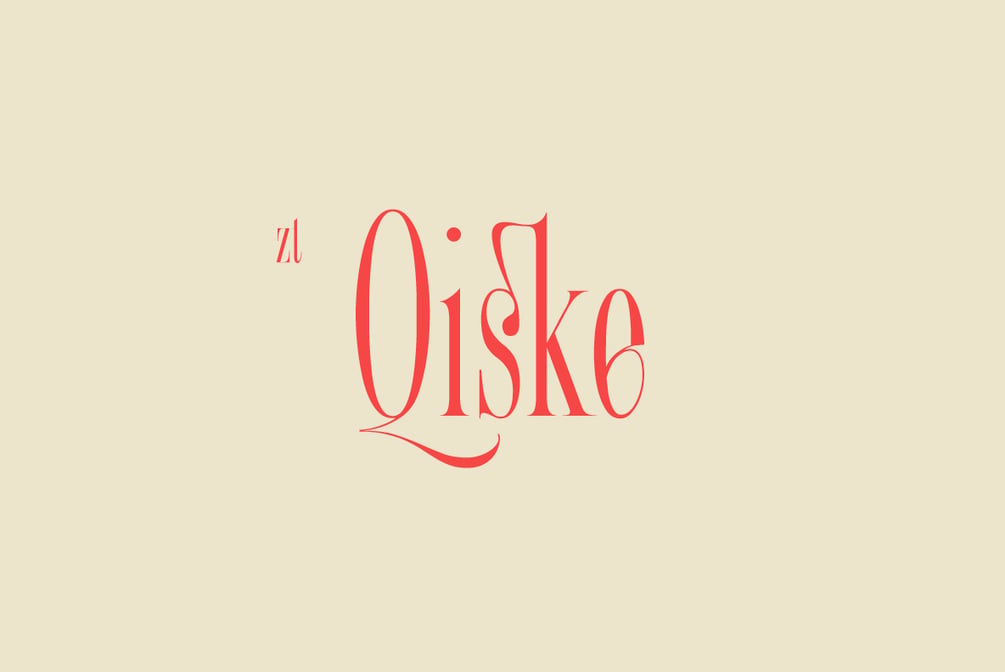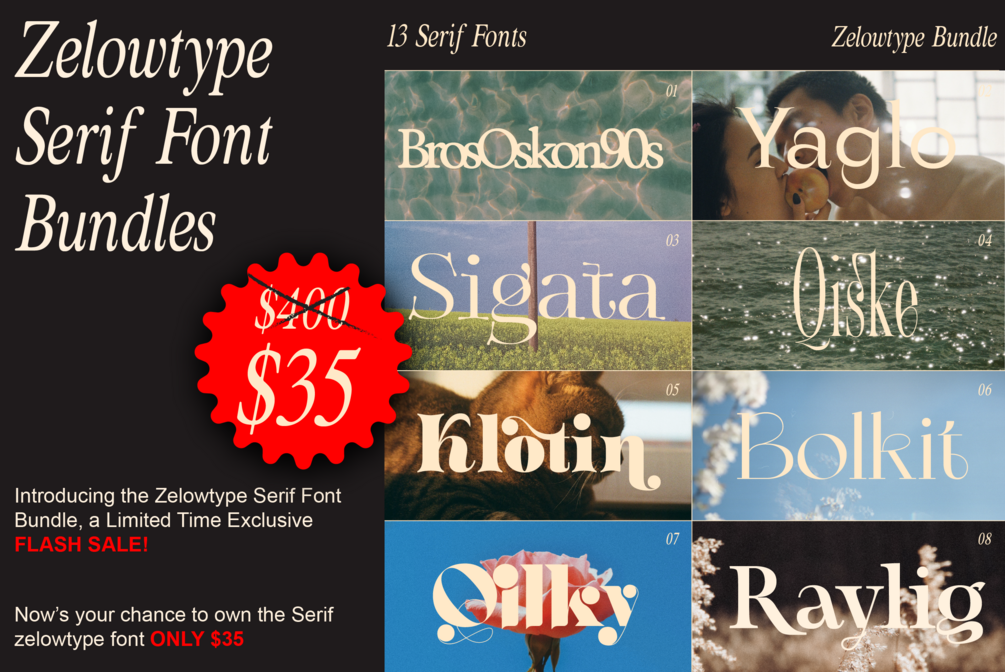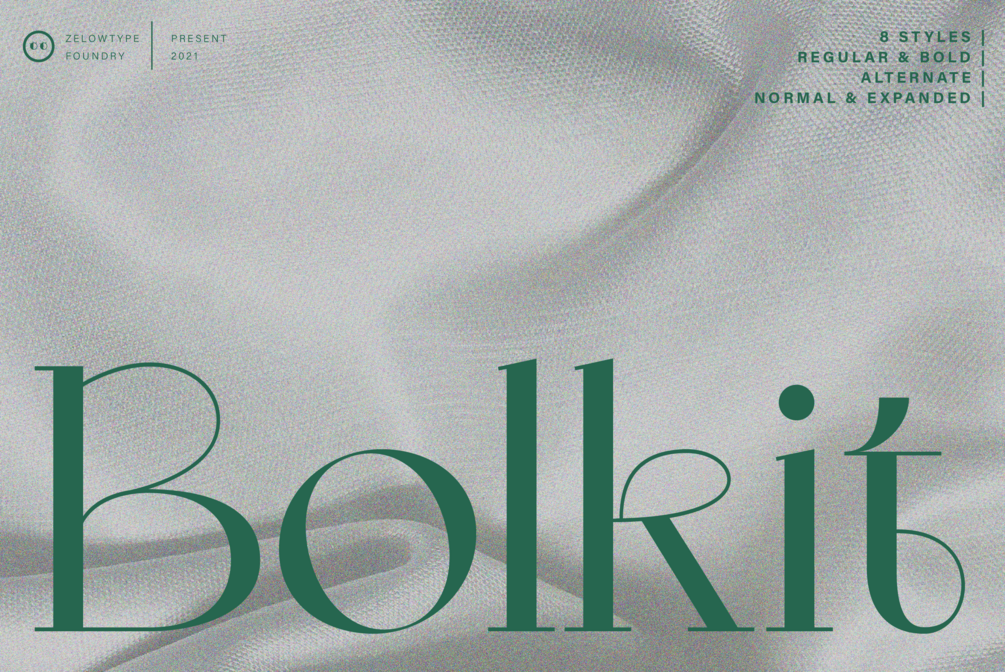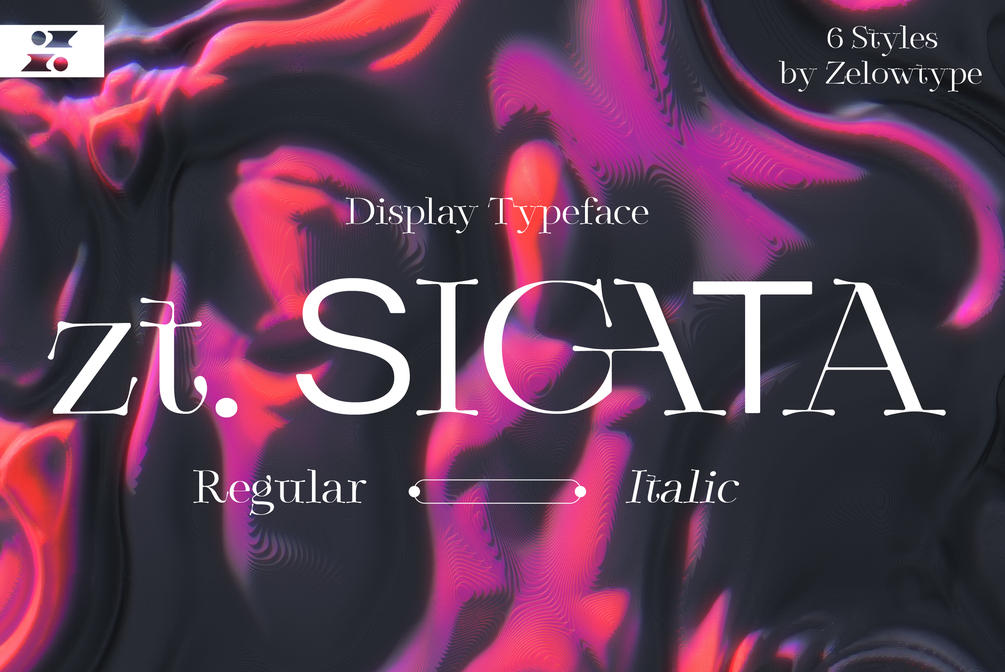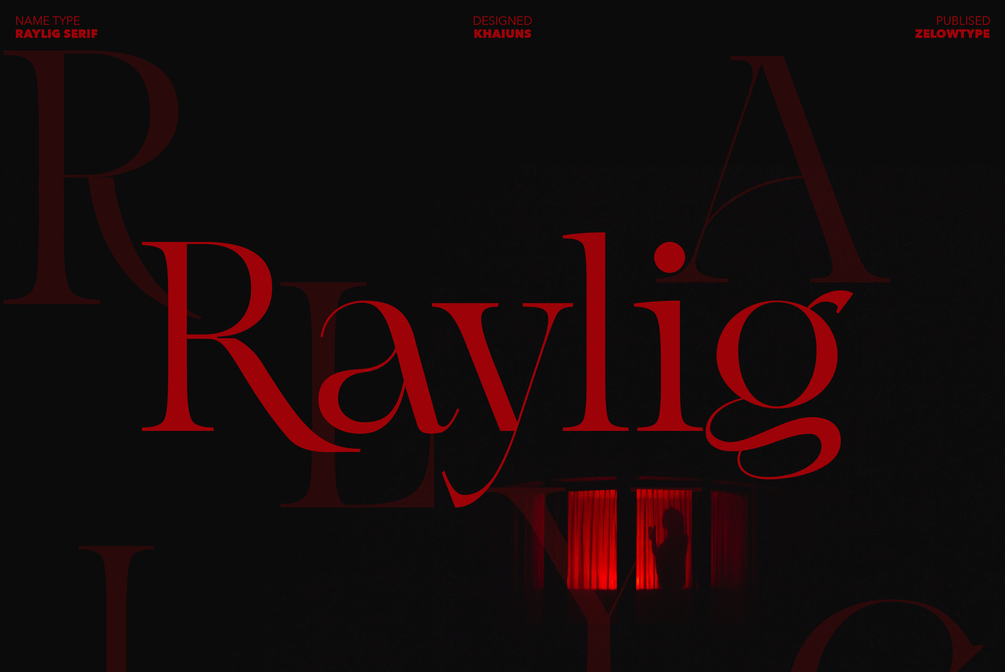
Zelowtype Serif Elegance Font Bundles
Bundle Font Zelowtype Serif Elegance
Dive into the timeless elegance of typography with our Zelowtype Serif Elegance bundle! This curated collection boasts 12 exquisite serif fonts, each crafted with precision and finesse. Designed to elevate your projects, from sophisticated branding to elegant invitations, this bundle is a must-have for any design enthusiast.
What You Get:
• Zelow Classic Serifs: A collection of versatile serif fonts, perfect for adding a touch of sophistication to your designs. From thin to bold, these fonts offer a wide range of styles to suit any project.
• Zelow Vintage Serifs: Transport your designs to the past with these vintage-inspired serif fonts. Ideal for creating a nostalgic atmosphere, these fonts bring a sense of history and authenticity to your work.
• Zelow Modern Serifs: Clean, contemporary serif fonts designed for the modern aesthetic. These fonts combine tradition with a sleek, minimalist vibe, making them perfect for high-end branding and editorial design.
Bonus Font: ZT Formom:
Key Features:
• 12 Stunning Serif Fonts: From elegant scripts to bold display fonts, this bundle covers a wide range of styles to cater to all your design needs.
• Versatility and Elegance: Each font in this bundle is meticulously crafted to exude sophistication, making them ideal for luxury brands, wedding invitations, and upscale publications.